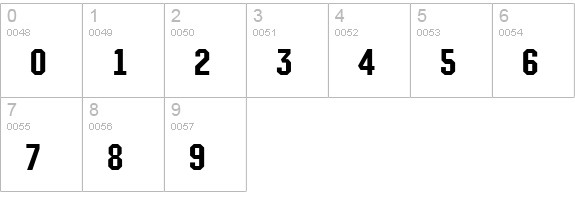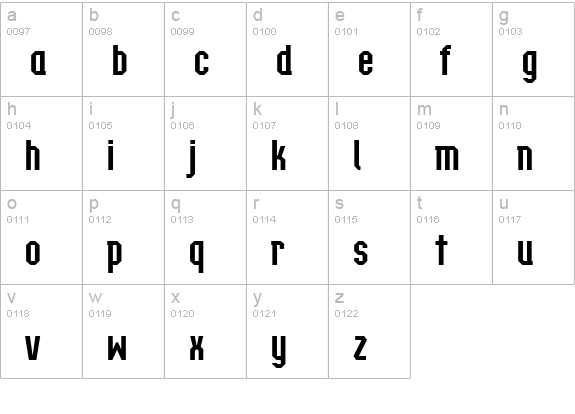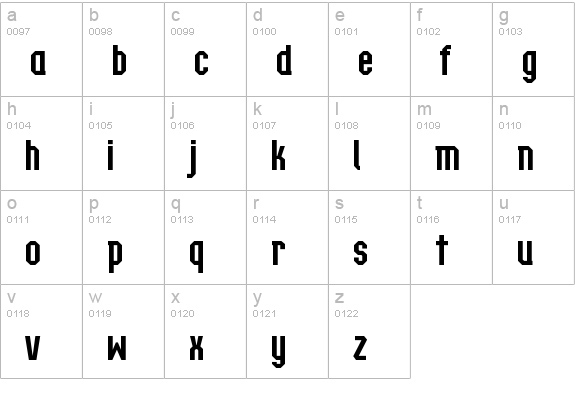
a_Technics DemiBold is a sub-bold, structured variant in the a_Technics typeface family \xE2\x80\x94 well suited to sub-headlines and emphasised passages.
The Technics DemiBold font is a bold and modern typeface that exudes confidence and sophistication. Its clean lines and strong presence make it perfect for headlines, titles, and other display purposes. With its sleek design and striking appearance, Technics DemiBold commands attention and leaves a lasting impression. This versatile font is suitable for a wide range of design projects, from branding to web design to print materials. What's even better is that Technics DemiBold is available for free download at FontsMarket.com. Simply visit the website to get your hands on this stylish and impactful font and elevate your designs to the next level. Don't miss out on the opportunity to add Technics DemiBold to your font collection today!